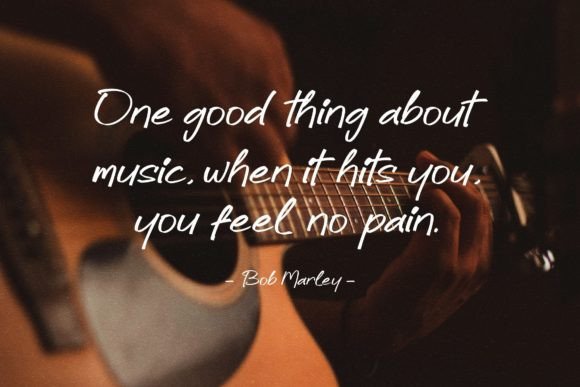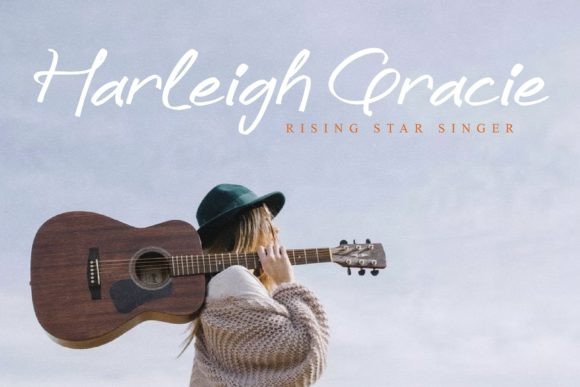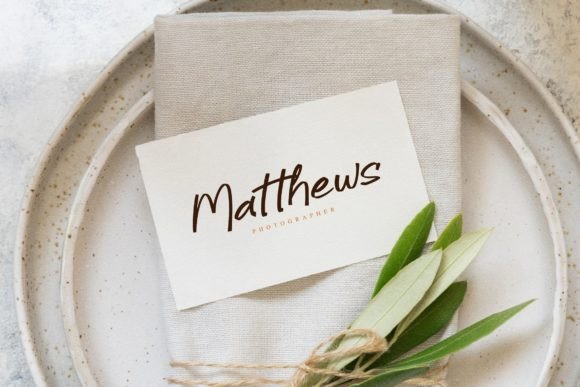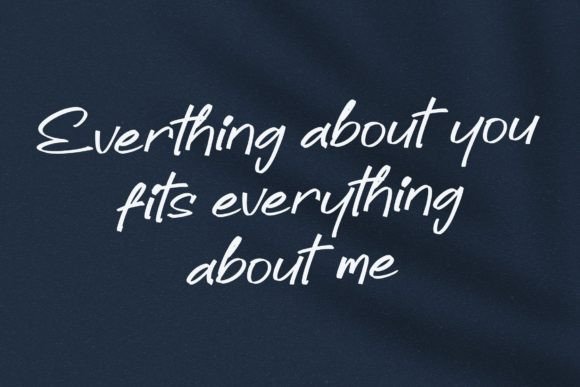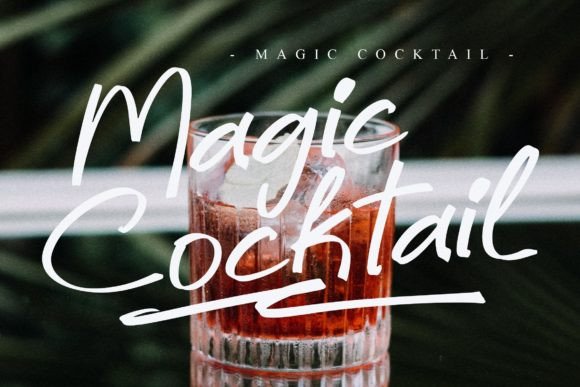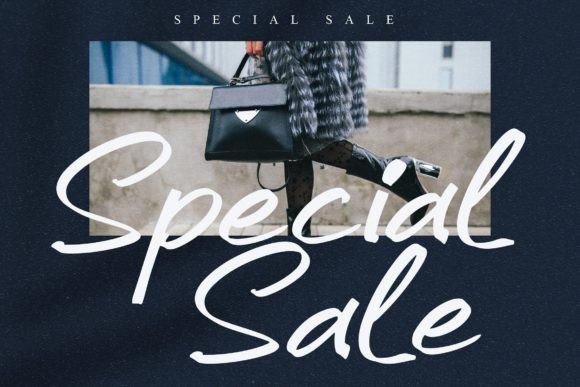
Introduction to Handuk Font
Have you ever been in the middle of a creative project, pouring your heart and soul into every detail, and suddenly, the right font makes all the difference? That’s exactly what happened to me when I discovered the Handuk Font – a magical handwritten font that elevates any design to new heights. With its high-quality strokes and transparent background, it’s the perfect addition to any creative project.
As a designer, you know how valuable the right font can be in bringing your vision to life. And that’s exactly why the Handuk Font is a game-changer. Whether you’re working on a free download project or a commercial design, this font is sure to impress. With its elegant and sophisticated style, it’s the perfect design resource for anyone looking to add a touch of class to their work.
Key Features of Handuk Font
• High-quality font design with a unique and creative aesthetic, perfect for a wide range of design projects.
• Comes with a transparent background, making it easy to use in various design scenarios, from web design to print media.
• Features a large character set, including uppercase and lowercase letters, numbers, and special characters.
• Designed with a high resolution, making it suitable for use in large-scale designs and prints.
• Can be used in various creative projects, from branding and advertising to editorial and publishing design.
Honest Review: Handuk Font
I recently had the chance to try out the Handuk Font, and I must say it’s a great addition to any designer’s toolkit. One of the standout features of this font is its high quality, making it perfect for any creative project that requires a professional touch.
• High-quality design
• Transparent background for easy customization
• ⚠️ Limited font style options (only a few weights available)
• ⚠️ May not be suitable for projects that require a wide range of font styles
Overall, I’m impressed with the Handuk Font. While it may have some limitations, its high quality and free download make it a valuable resource for designers. It’s perfect for creative projects that require a professional touch, and I’d definitely recommend it to fellow designers.
How to Use Handuk Font
The Handuk Font is a free, high-quality design resource perfect for any creative project. With its transparent background, it can be easily layered over images or other design elements.
The Handuk Font is perfect for:
• Food bloggers and influencers
• Travel and adventure designers
• Photography studios and agencies
To get the most out of the Handuk Font, try:
• Layering it over high-quality images
• Customizing the font size and color
• Combining it with other design elements
Alternatives to Handuk Font
Montserrat is a high-quality, sans-serif font that is perfect for creative projects requiring a modern look. It comes with a transparent background and is ideal for web design, logos, and advertisements. Montserrat is available for free download and is a great alternative to Handuk Font for designers looking for a clean and sophisticated look.
Compared to Handuk Font, Montserrat has a more minimalist design and is suitable for a wider range of creative projects.
Open Sans is a free, high-quality font that is designed for web use. It features a transparent background and is ideal for creative projects requiring a clean and modern look. Open Sans is a great alternative to Handuk Font for designers looking for a versatile and highly readable font.
Compared to Handuk Font, Open Sans has a more neutral design and is suitable for a wider range of creative projects, from logos to web design.